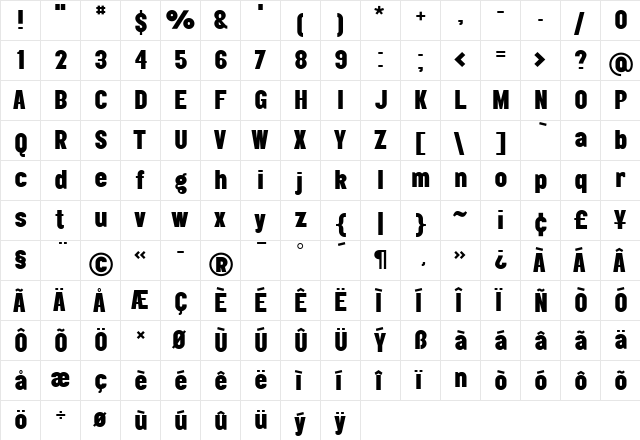
Elephant Black
| Foundry | Gareth Hague |
Design Context for Elephant Typeface
Elephant offers clean, dependable letterforms without strong stylistic allegiance, making it a practical choice for designers who need flexibility.